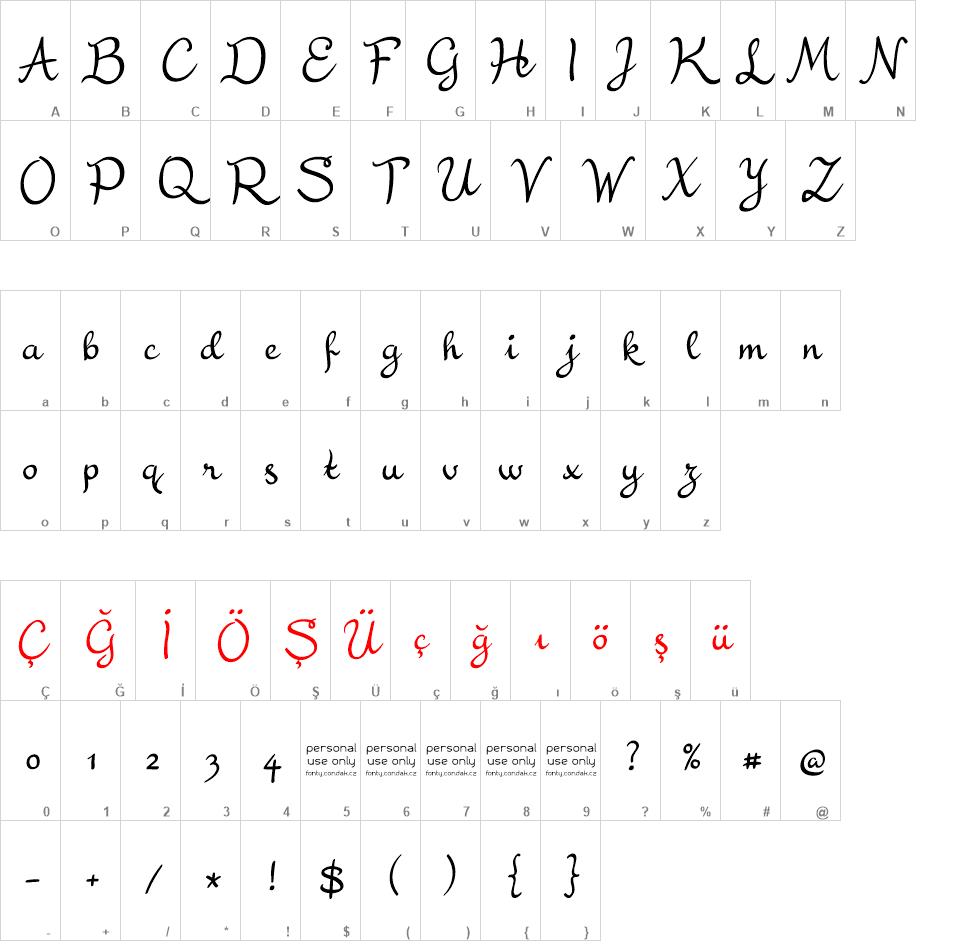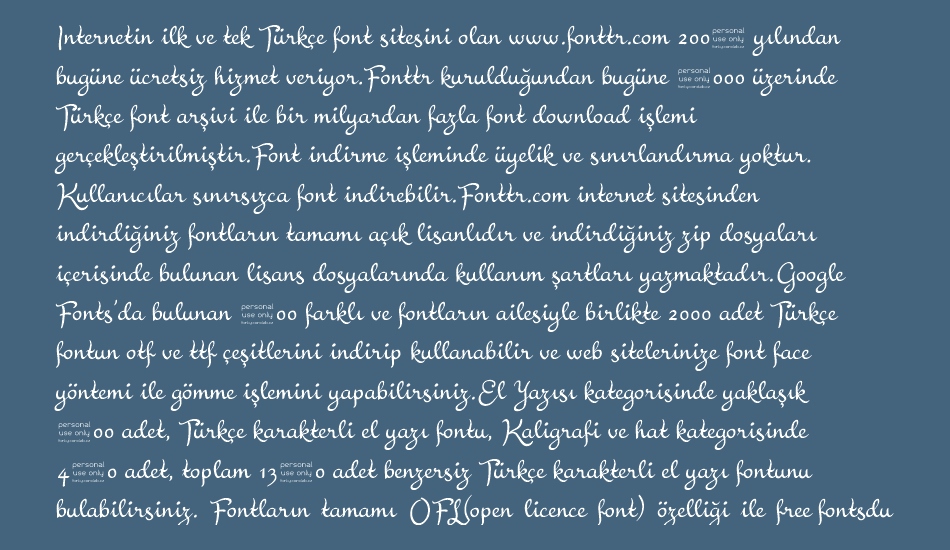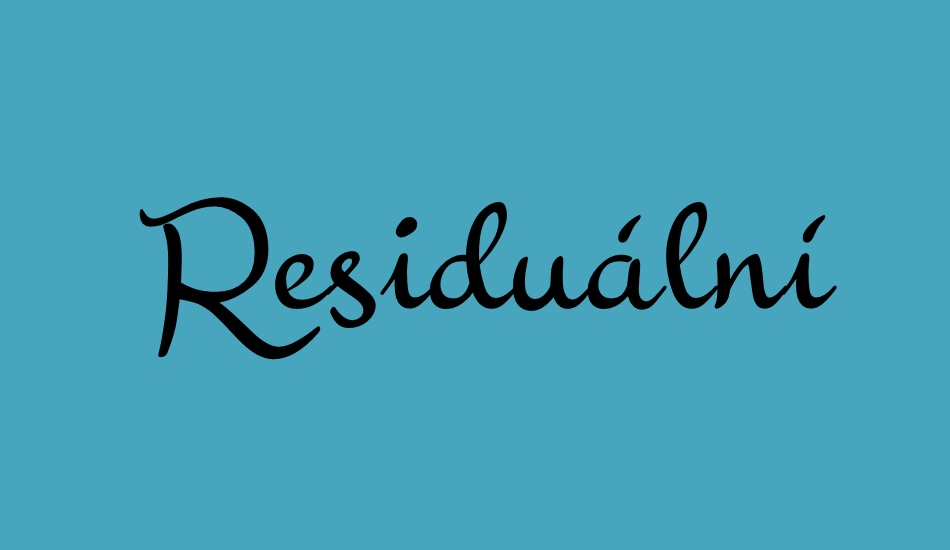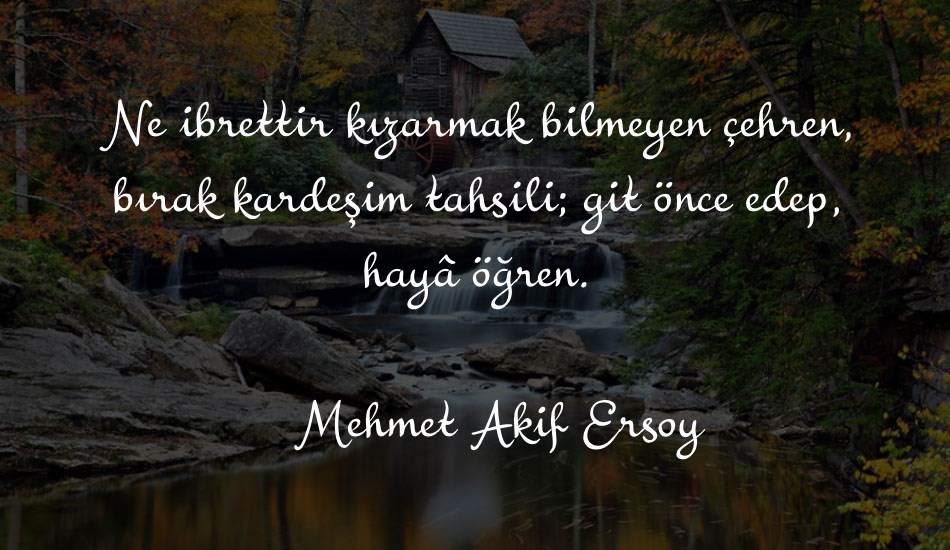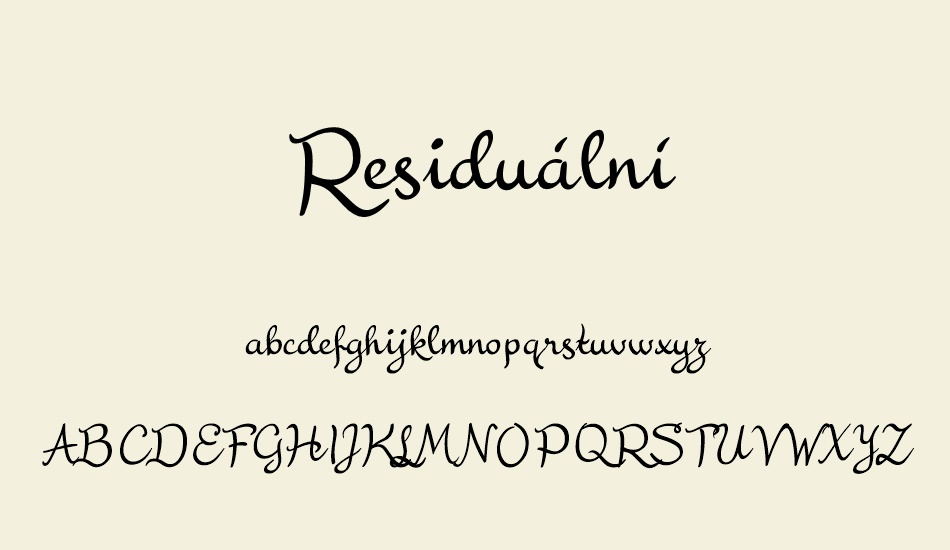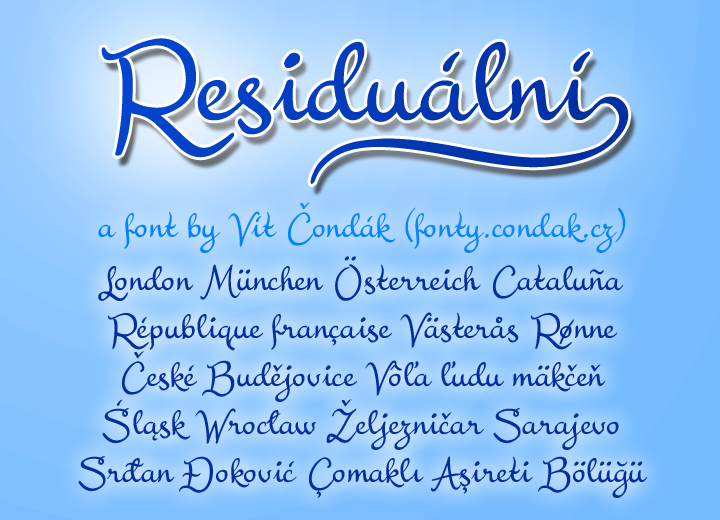
Residuální font
Residu?ln?
by V?t ?ond?k
The public version of the font intentionally does not include numbers 5 to 9.
A curly font immitating brush calligraphy with really big upper case characters.
The big underline swash is mapped as tilde character (~).
Zvln?n? font v p?smomal??sk?m stylu se skute?n? velk?mi (ehm) p?smeny.
Velk? podtrh?vac? vlnovka je namapovan? jako znak tilda (~).